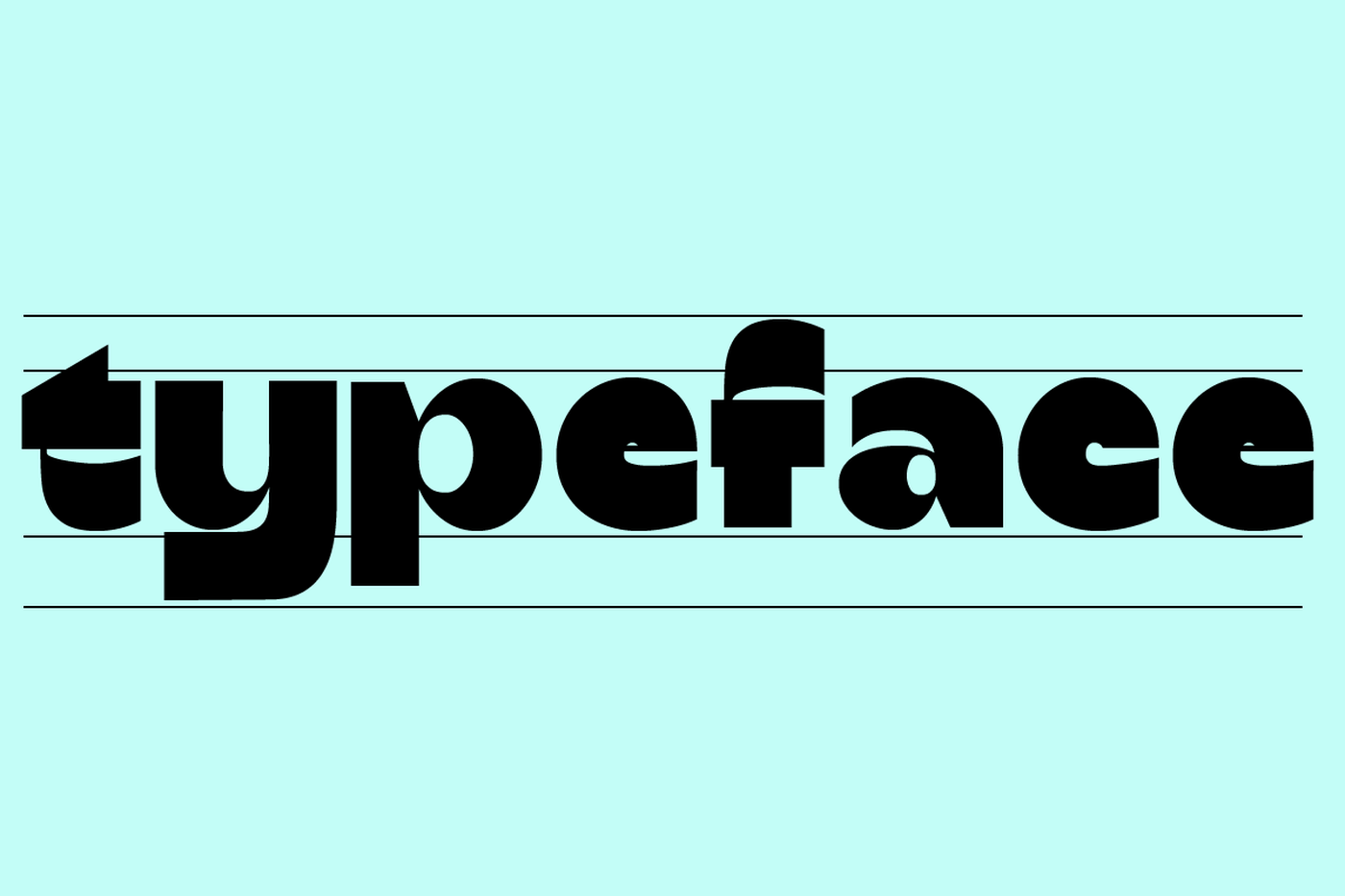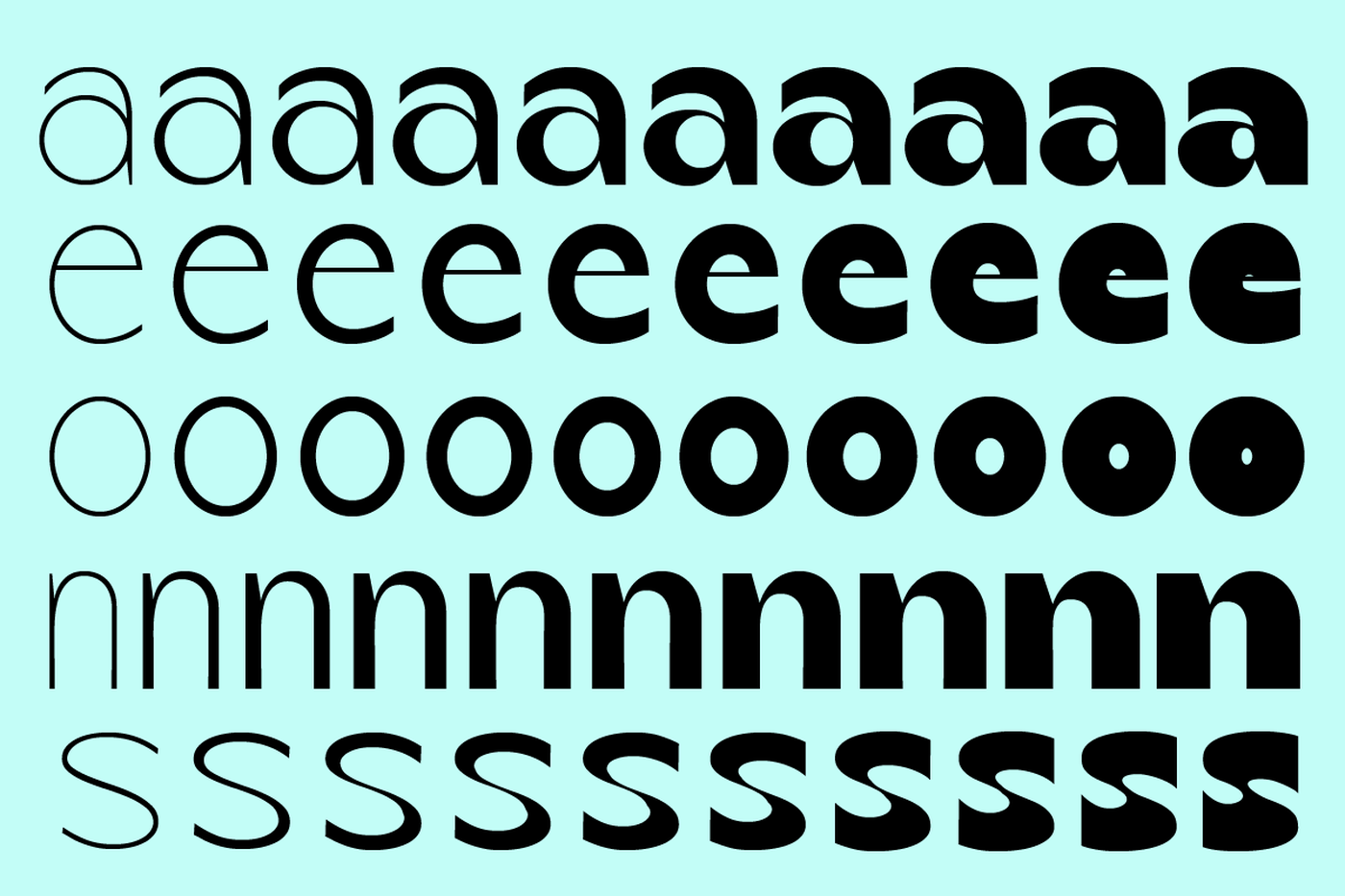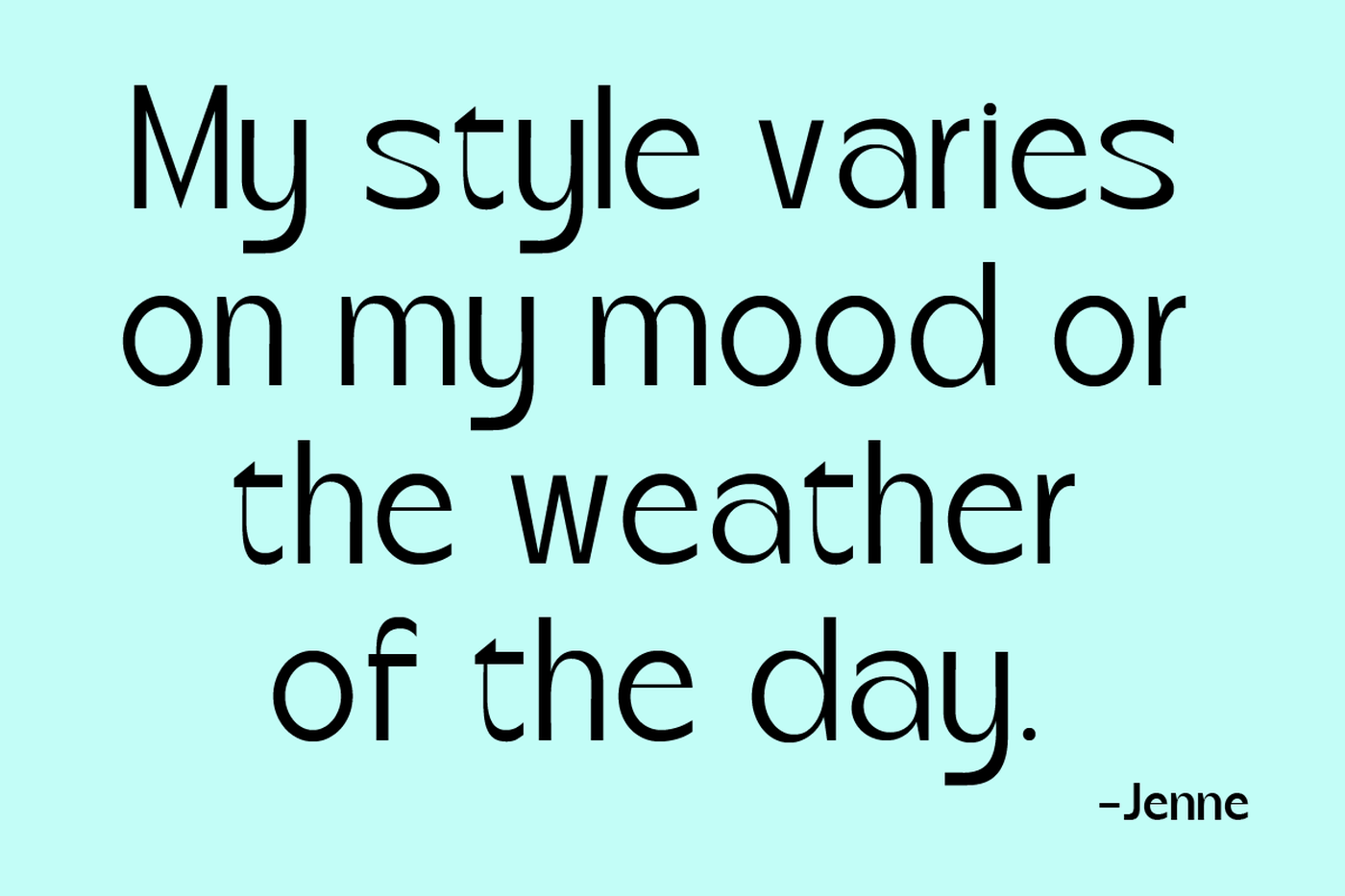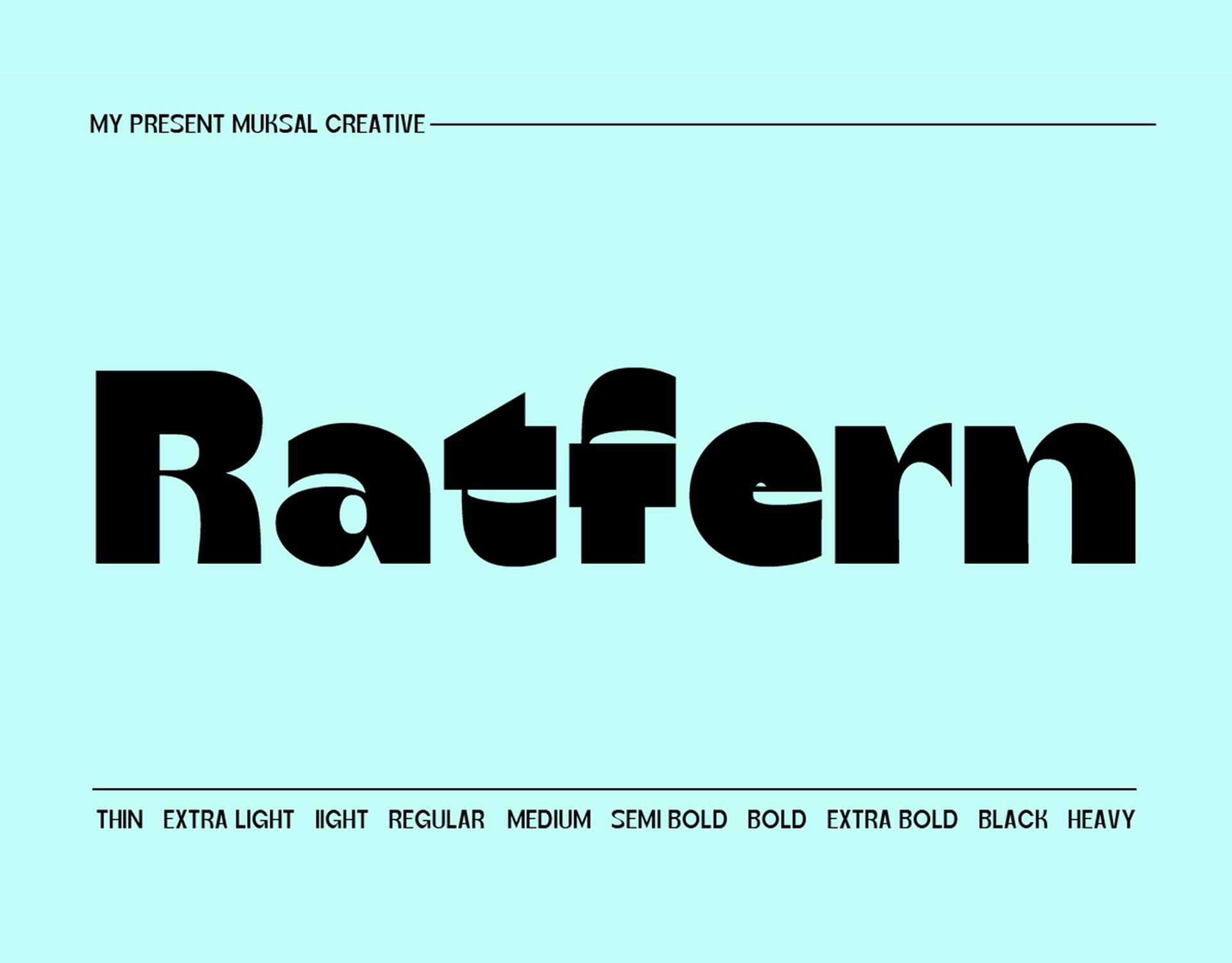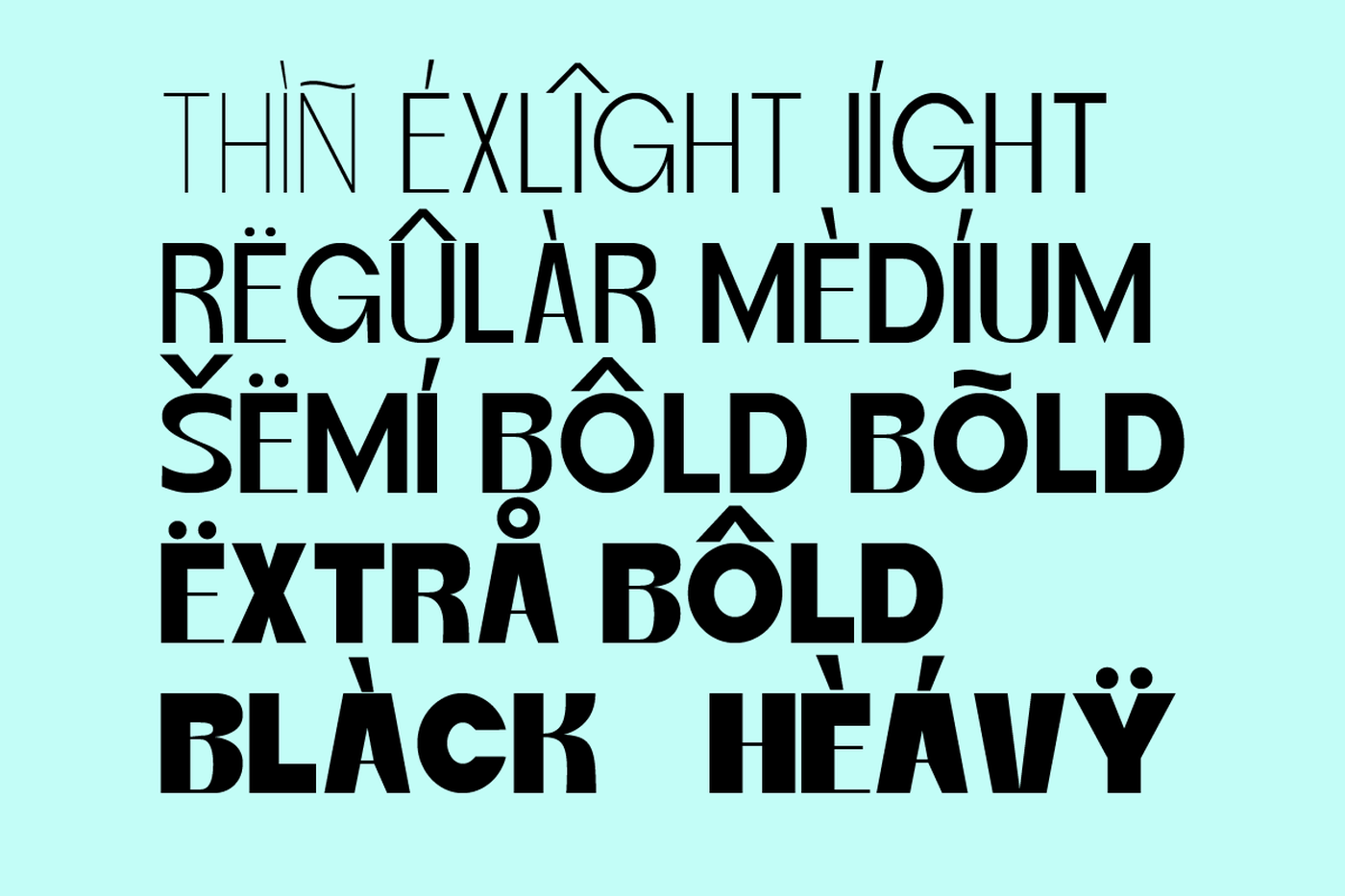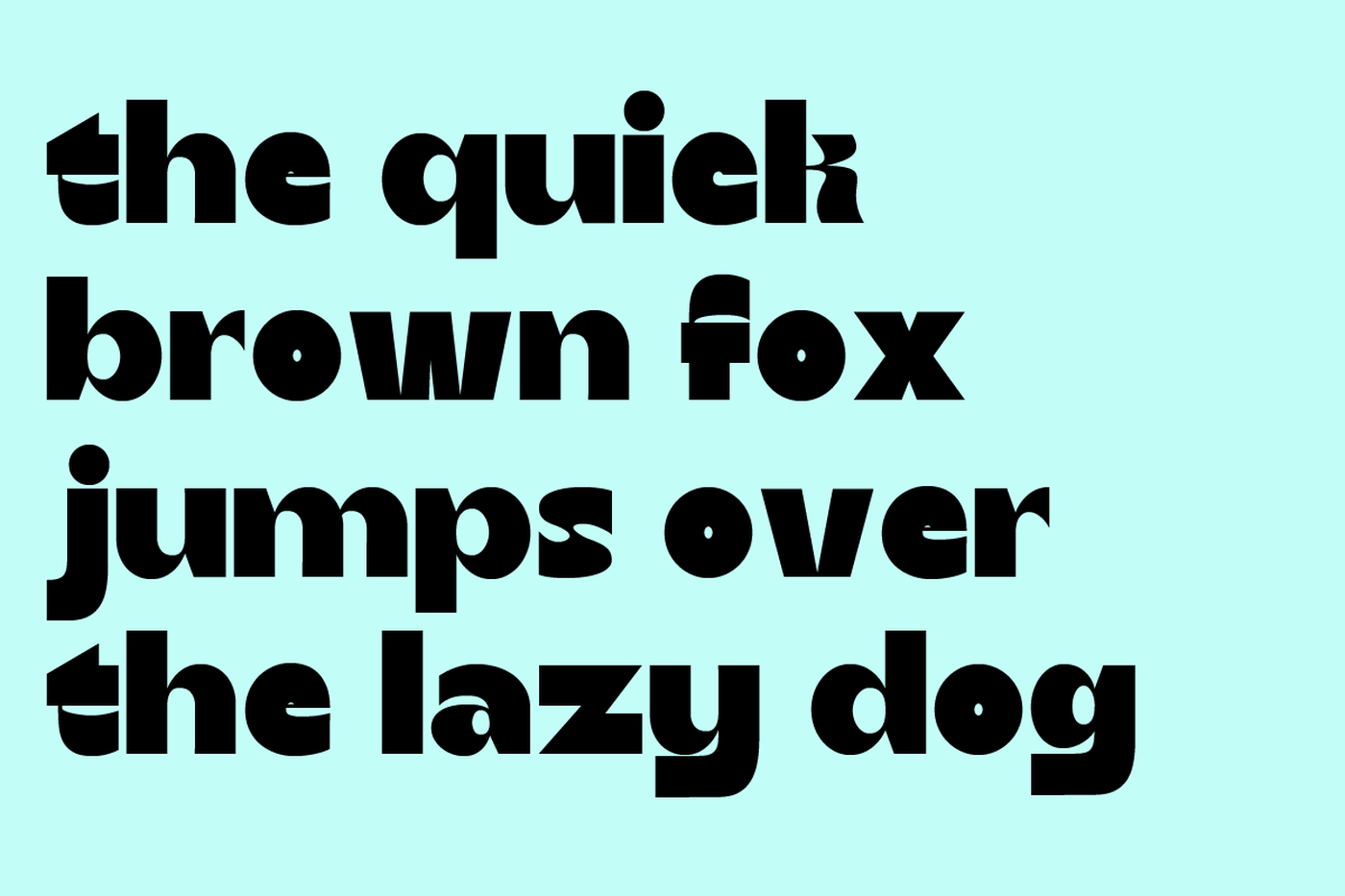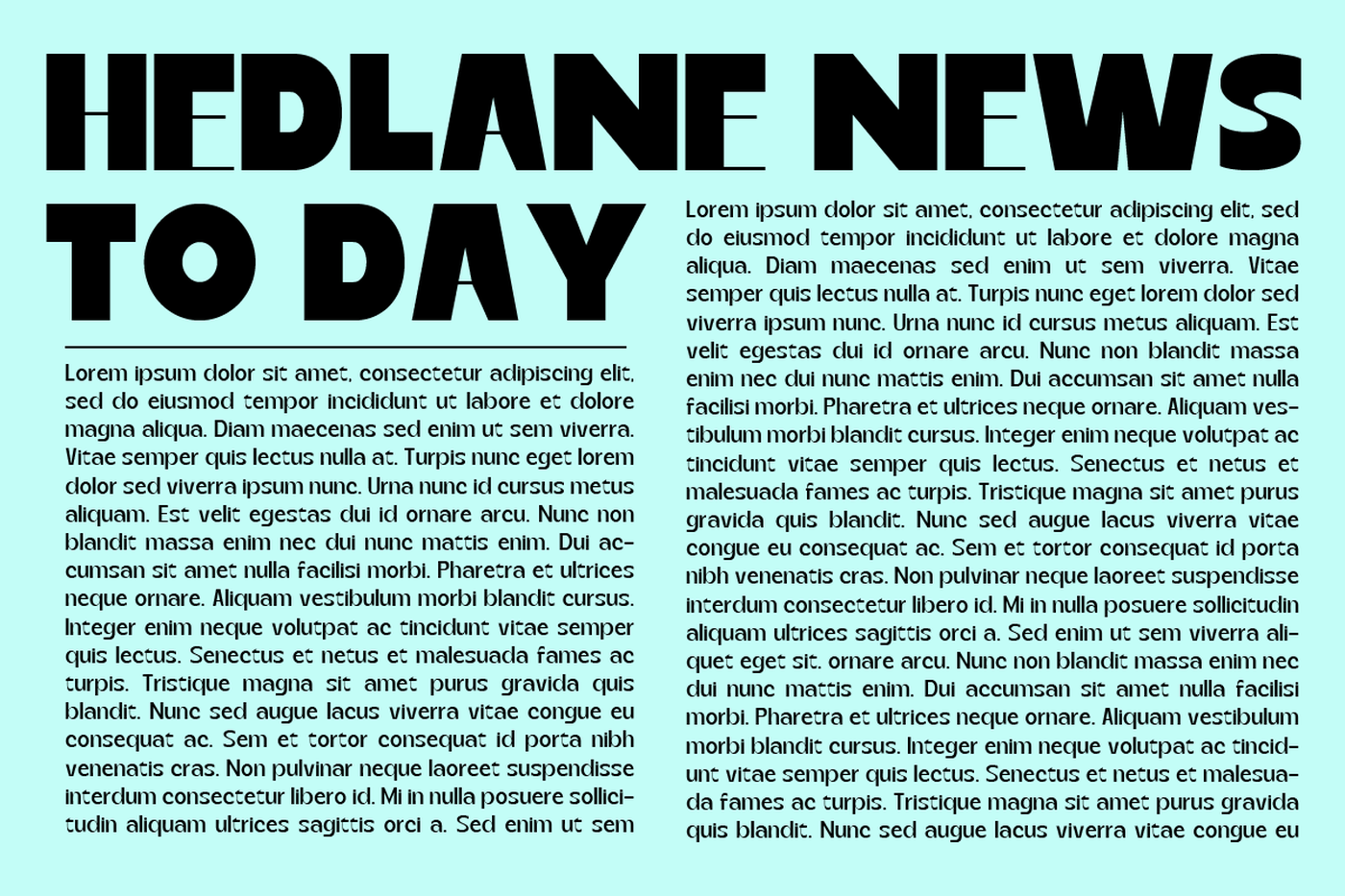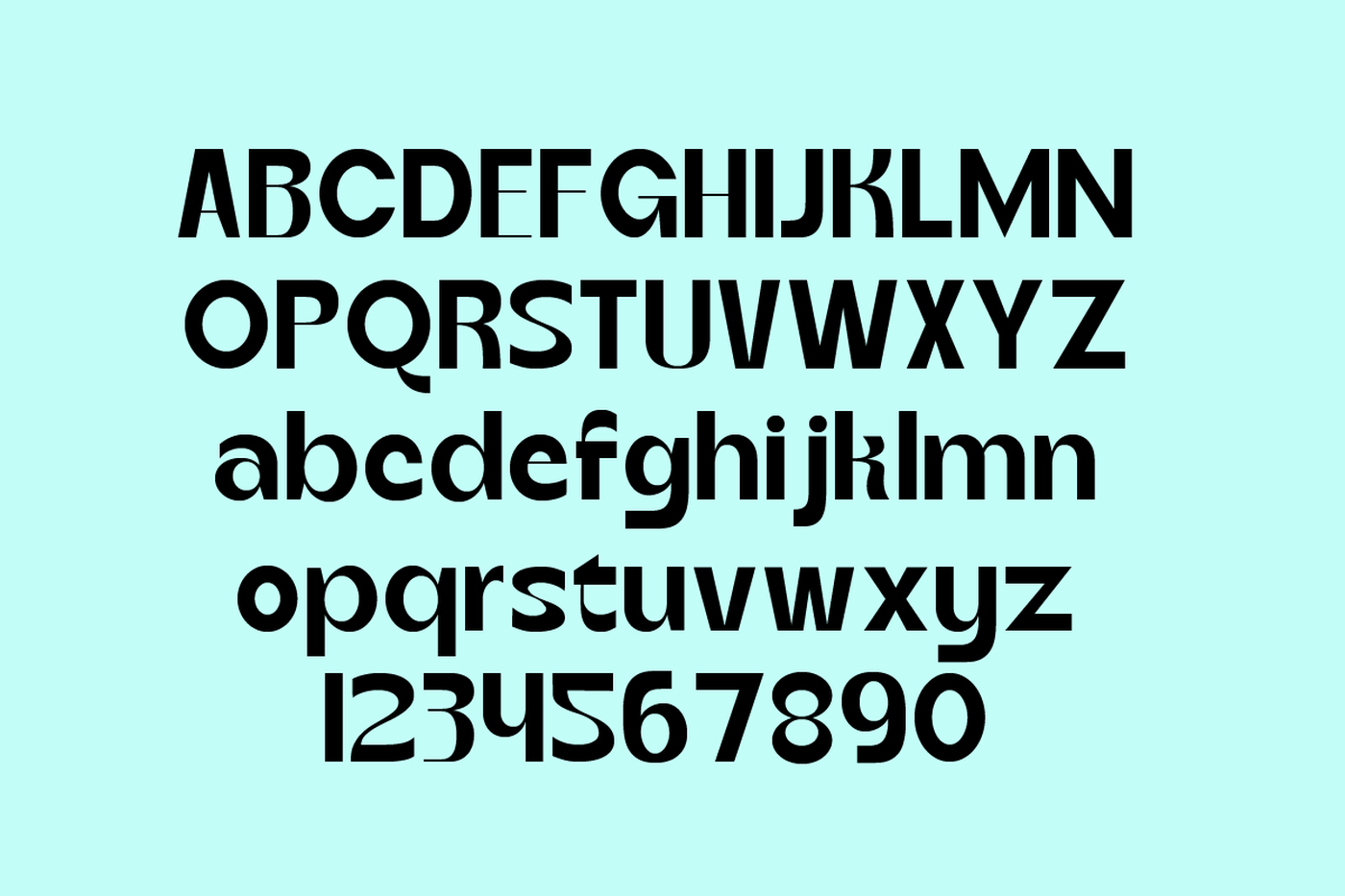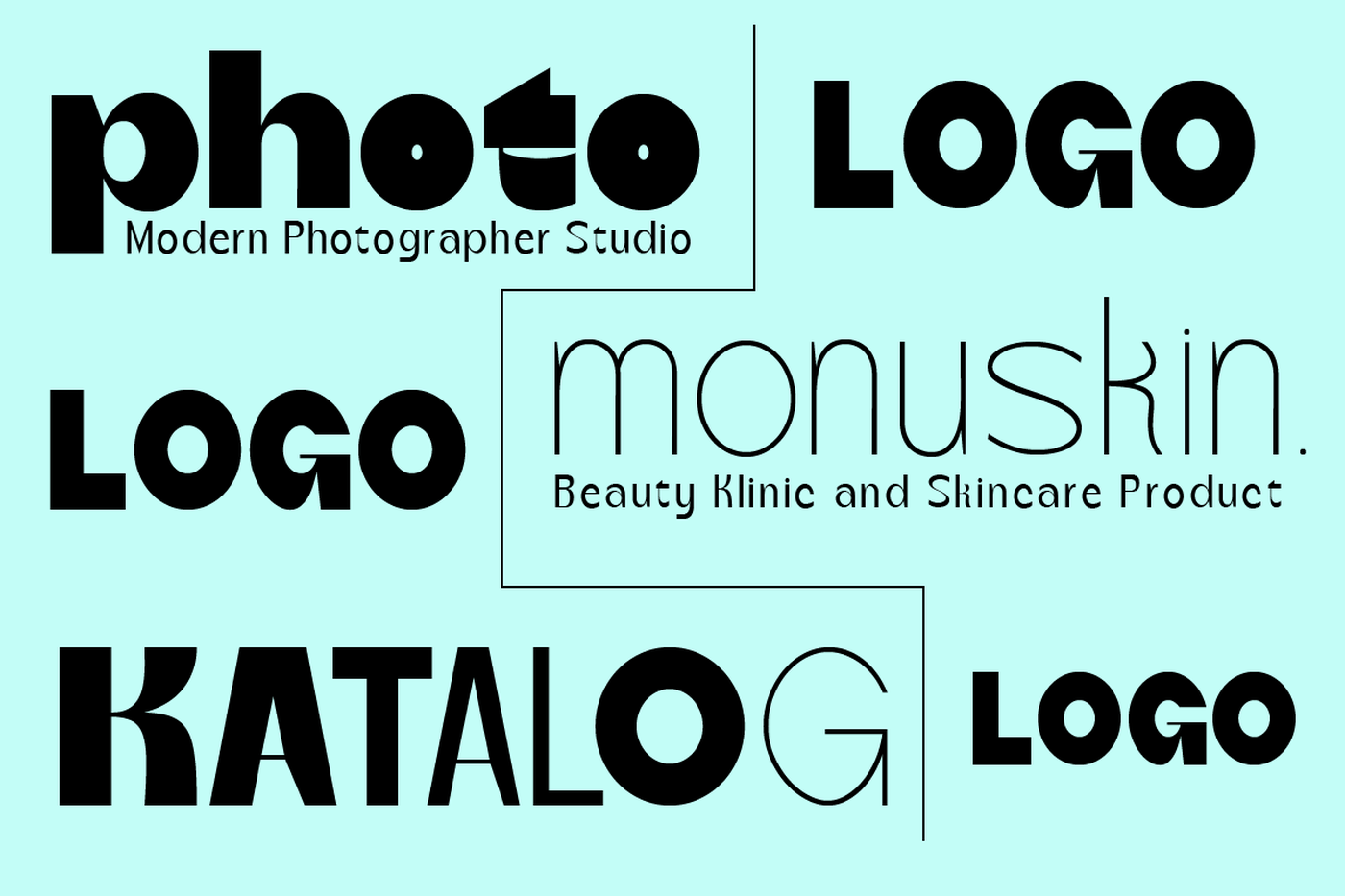
Ratfern - Modern Sans Serif Font Family
Raftern is a unique and modern sans-serif family designed for high impact and versatility. With a broad range of weights and clean letterforms, it’s ideal for magazines, posters, branding identities, and websites. Whether you need a strong display font for a headline or a readable typeface for a bold branding project, Raftern delivers clarity, character and design flexibility.
Designer: Creative Muksal
Font: Ratfern